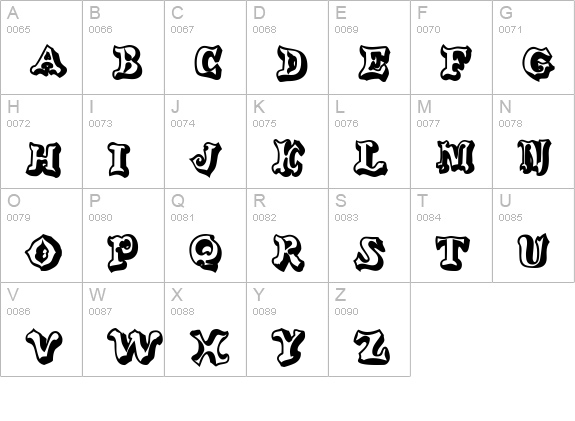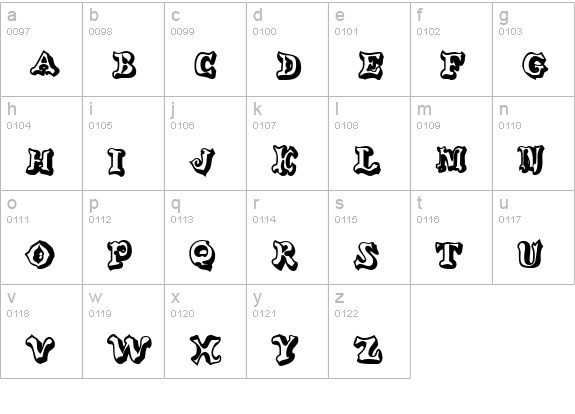
GanglyDisplayCaps Bold Font Details
GanglyDisplayCaps Bold is a strong, high-contrast variant in the GanglyDisplayCaps typeface family \xE2\x80\x94 well suited to headlines, attention-grabbing titles, and strong calls-to-action.
GanglyDisplayCaps Bold font is a bold and eye-catching typeface that is sure to make a statement. With its unique and distinctive design, this font commands attention and adds a touch of boldness to any project. The bold and exaggerated letterforms of GanglyDisplayCaps Bold create a strong and impactful visual presence. This font is perfect for headlines, logos, posters, and any design that requires a bold and daring touch. Its unique display style is sure to captivate and engage viewers, making it an excellent choice for grabbing attention. One of the best things about GanglyDisplayCaps Bold font is that it is freely available to download at FontsMarket.com. This means that you can easily access and use this font for your personal and commercial projects without any cost. FontsMarket.com offers a wide range of fonts, including this bold and striking typeface, allowing you to explore various options and find the perfect fit for your design needs. Whether you're a graphic designer, a blogger, or simply someone who loves to experiment with fonts, GanglyDisplayCaps Bold font is a must-have in your collection. Its bold and dynamic nature will elevate your design and make it stand out from the crowd. Download this font for free at FontsMarket.com and unleash your creativity with its captivating style.